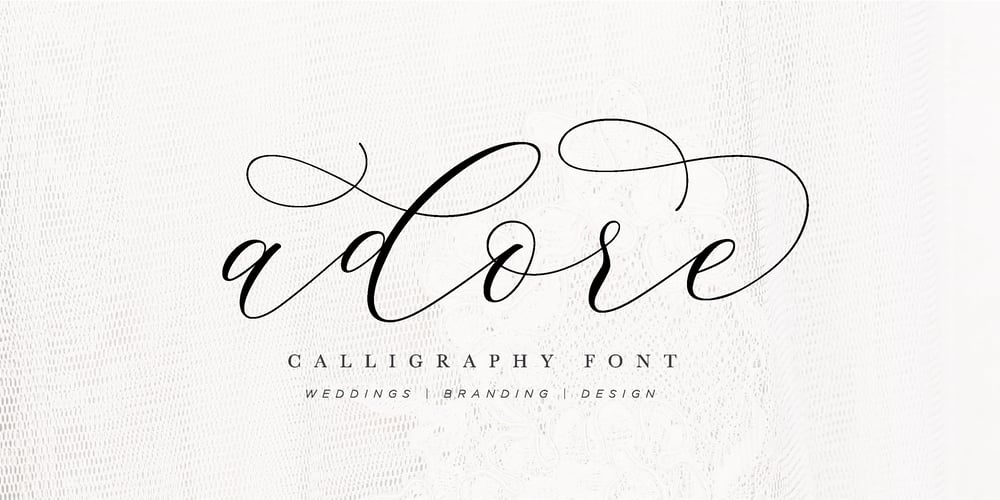
Adore Calligraphy Font Family was designed by Lindsay Kramlich and published by The Styled Script. Adore Calligraphy contains 1 styles and family package options. Introducing the elegant Adore Calligraphy Font! Adore Calligraphy was built with OpenType features and includes beginning and end swashes as well as alternate swash characters for all lowercase letters. Each character was thoughtfully crafted to create a timeless elegant look. For those of you who are needing a touch of elegance and modernity for your designs, this font is for you!